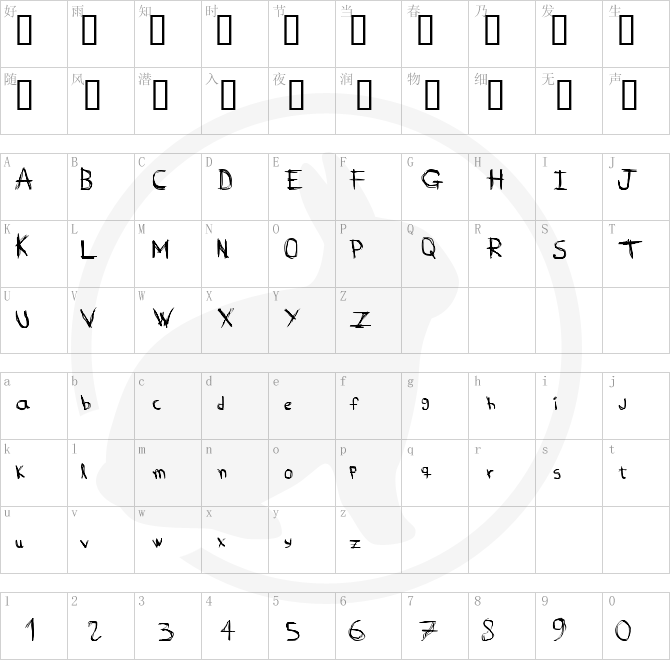
- Font Name:D_rough
D_rough-Normal.ttf is a very beautiful artistic font, D_rough-Normal.ttf is widely used in the design and printing of various books and pictures,D_rough-Normal.ttf has a strong visual impact,D_rough-Normal.ttf is a commonly used font in newspapers, magazines and books, and is used in posters, e-commerce Poster design, store design, logo design, font design and other fields.D_rough-Normal.